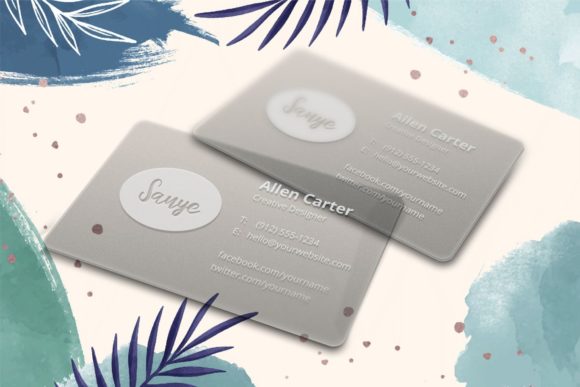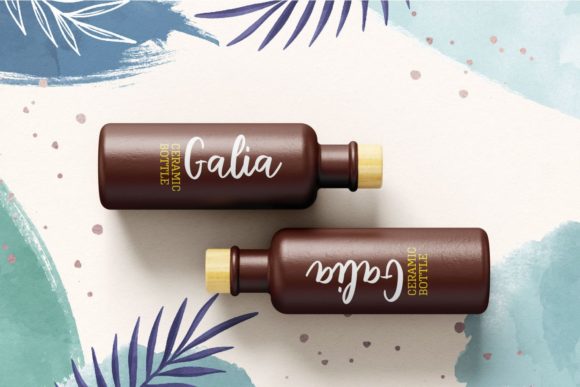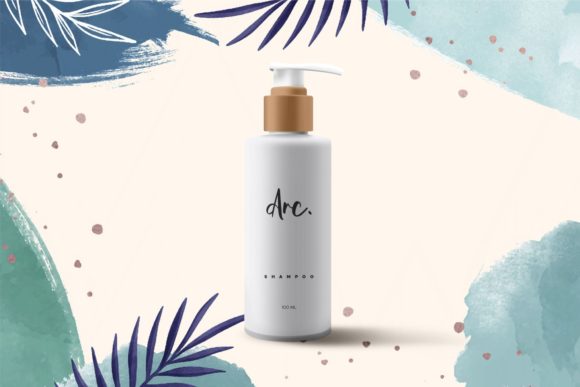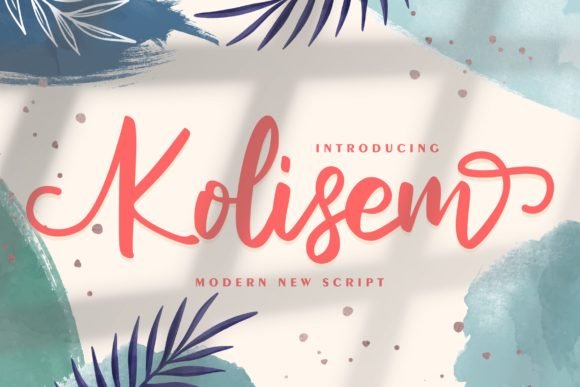
Introduction to Kolisem Font
Kolisem is a sweet brushed handwritten font.
It is defined by smooth curves and is perfect for fashion branding or editorial designs Add it confidently to your projects, and you won’t be disappointed.
Key Features of Kolisem Font
Why Choose Kolisem Font?
Kolisem Font offers exceptional quality and versatility, making it a valuable addition to your design toolkit. Whether you’re creating for personal projects or commercial use, Kolisem Font delivers professional results.